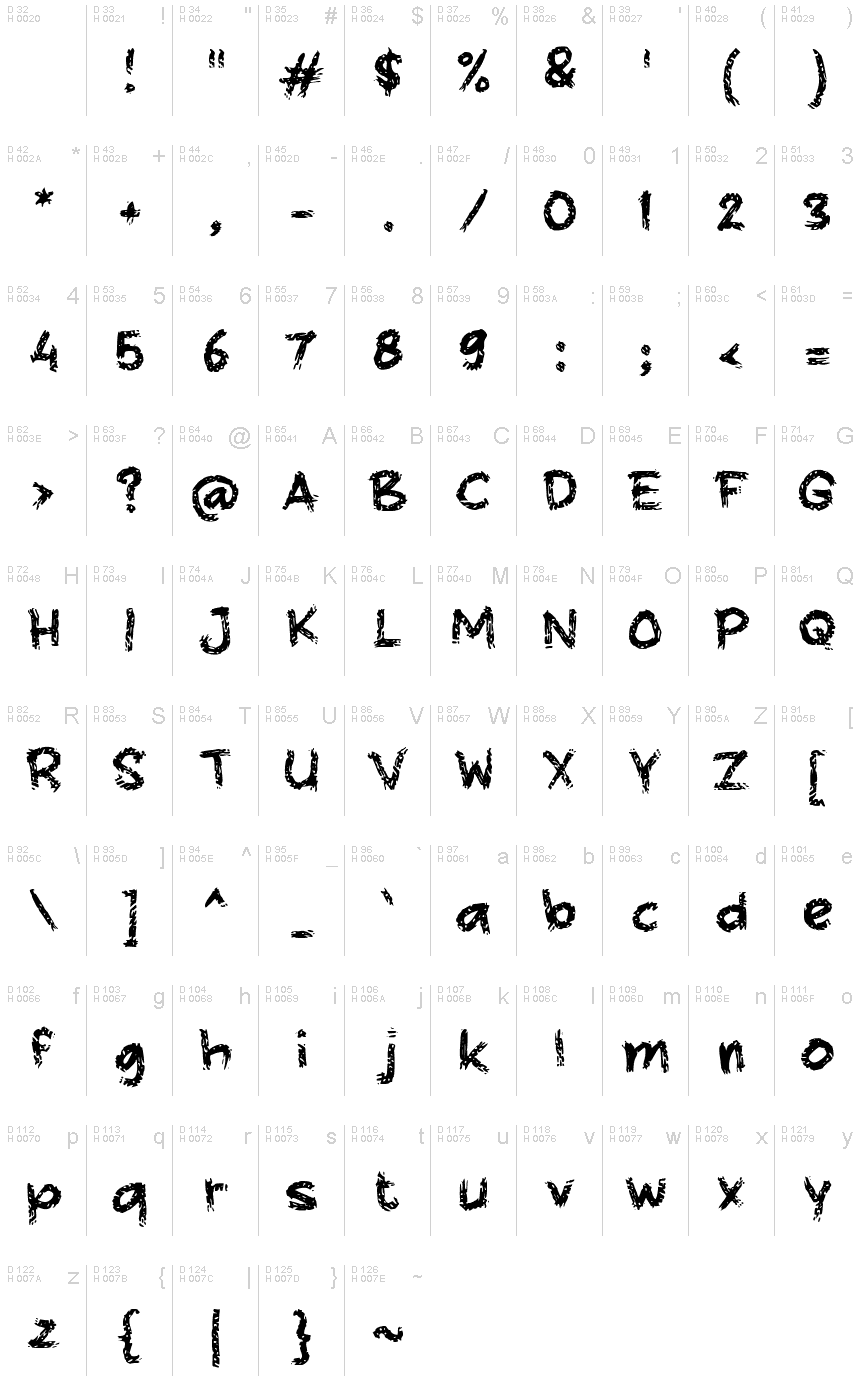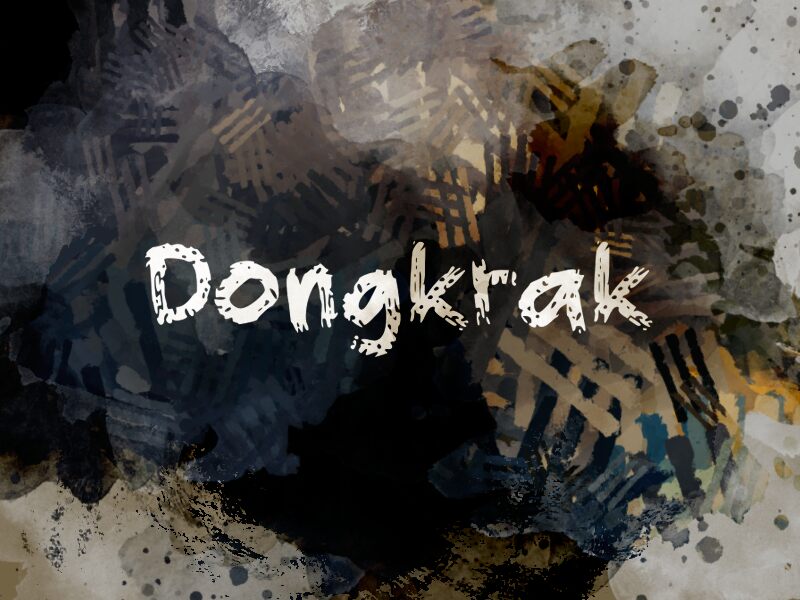
Dongkrak
Introducing Dongkrak, an edgy script font designed by Wahyu Eka Prasetya. Featuring a bold, trash-style design, Dongkrak is perfect for projects that demand to stand out from the crowd, such as apparel graphics, music album covers and festival flyers.